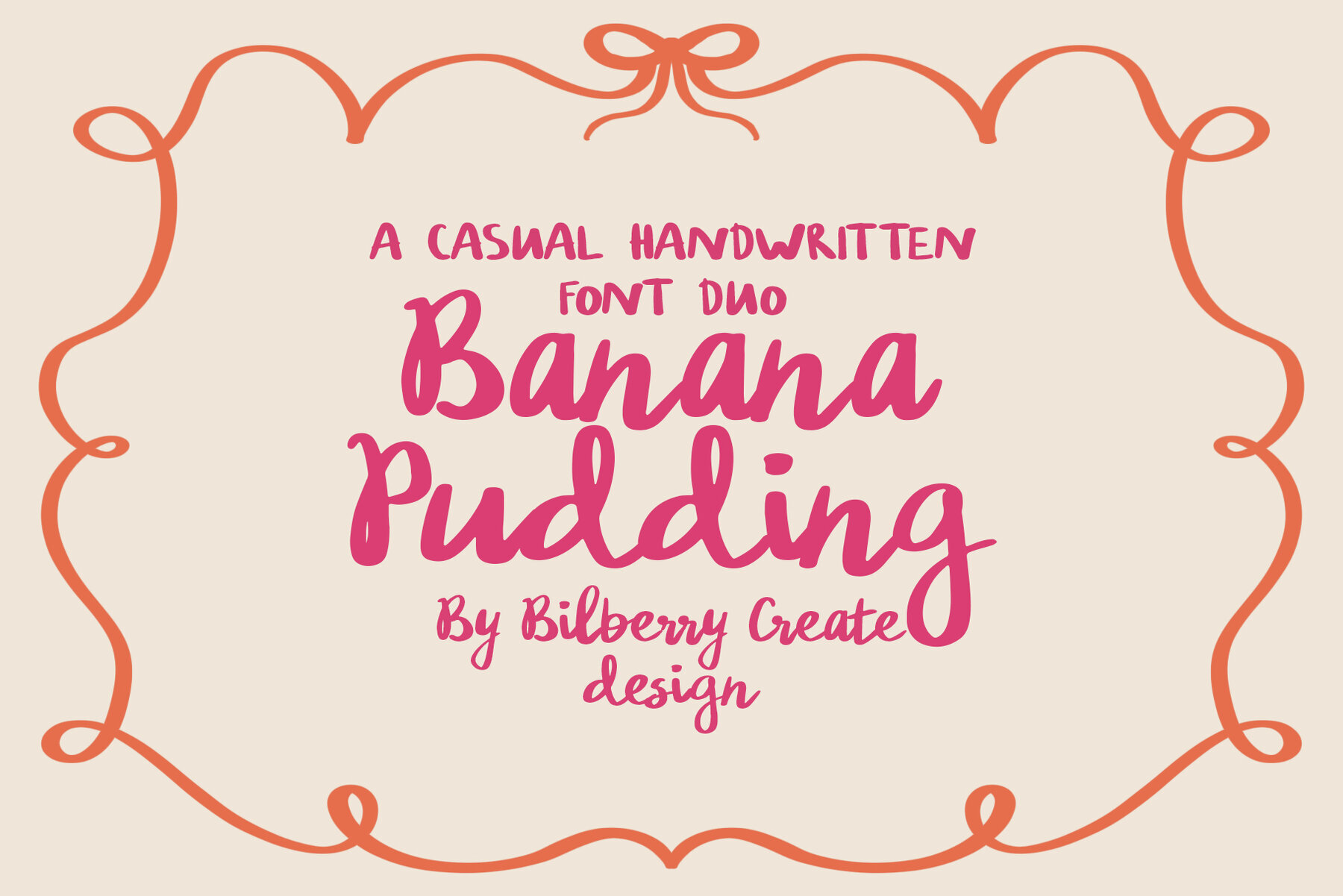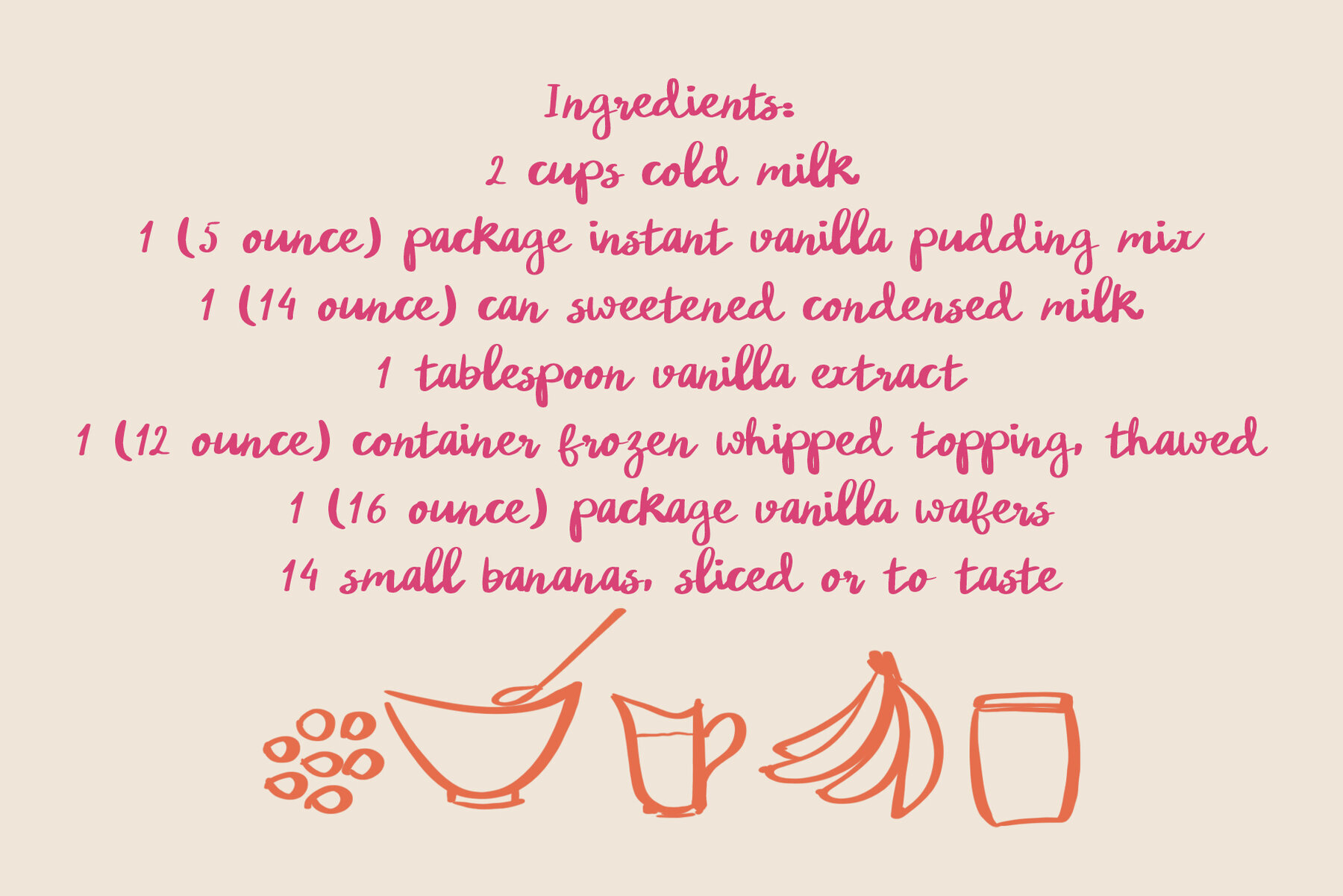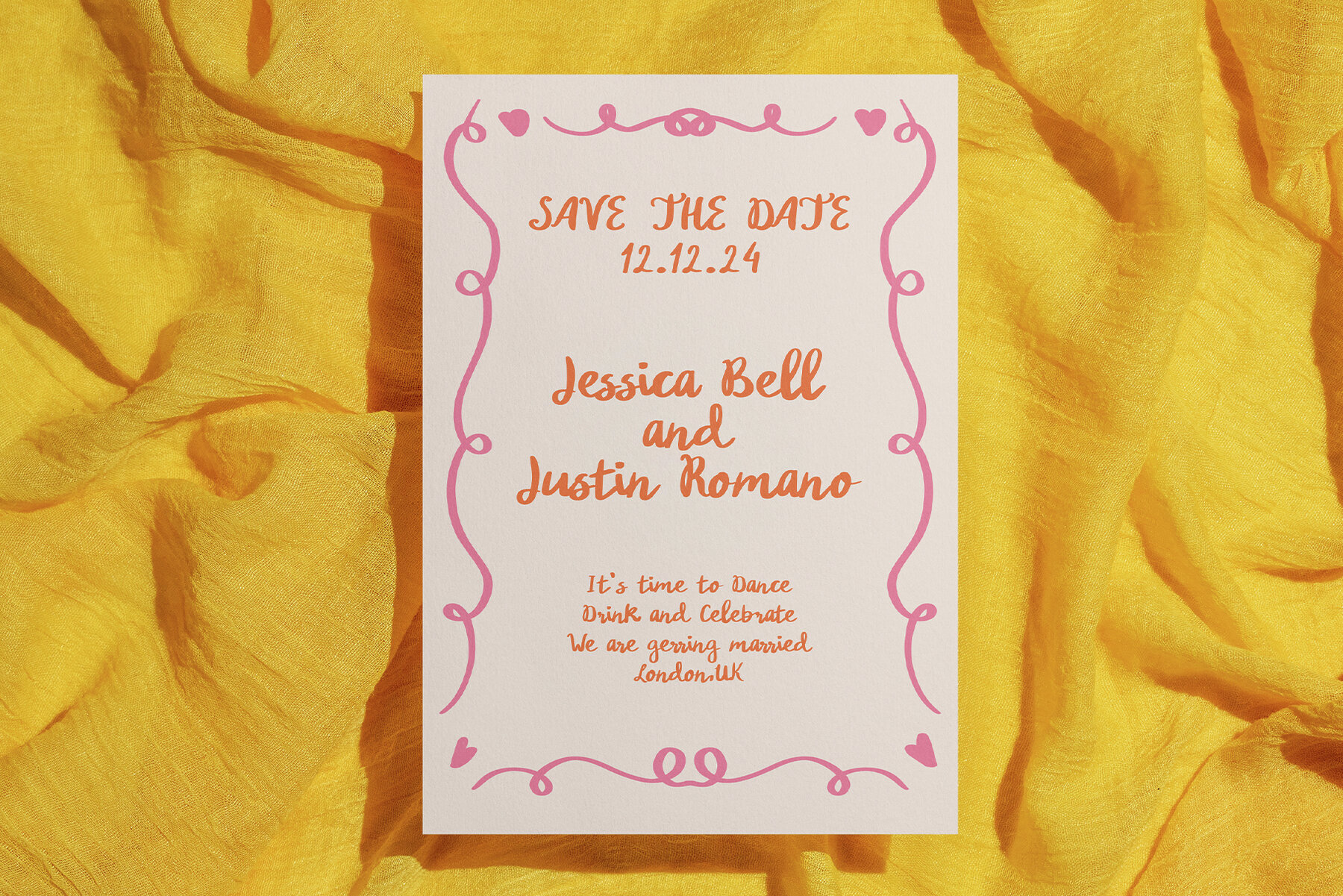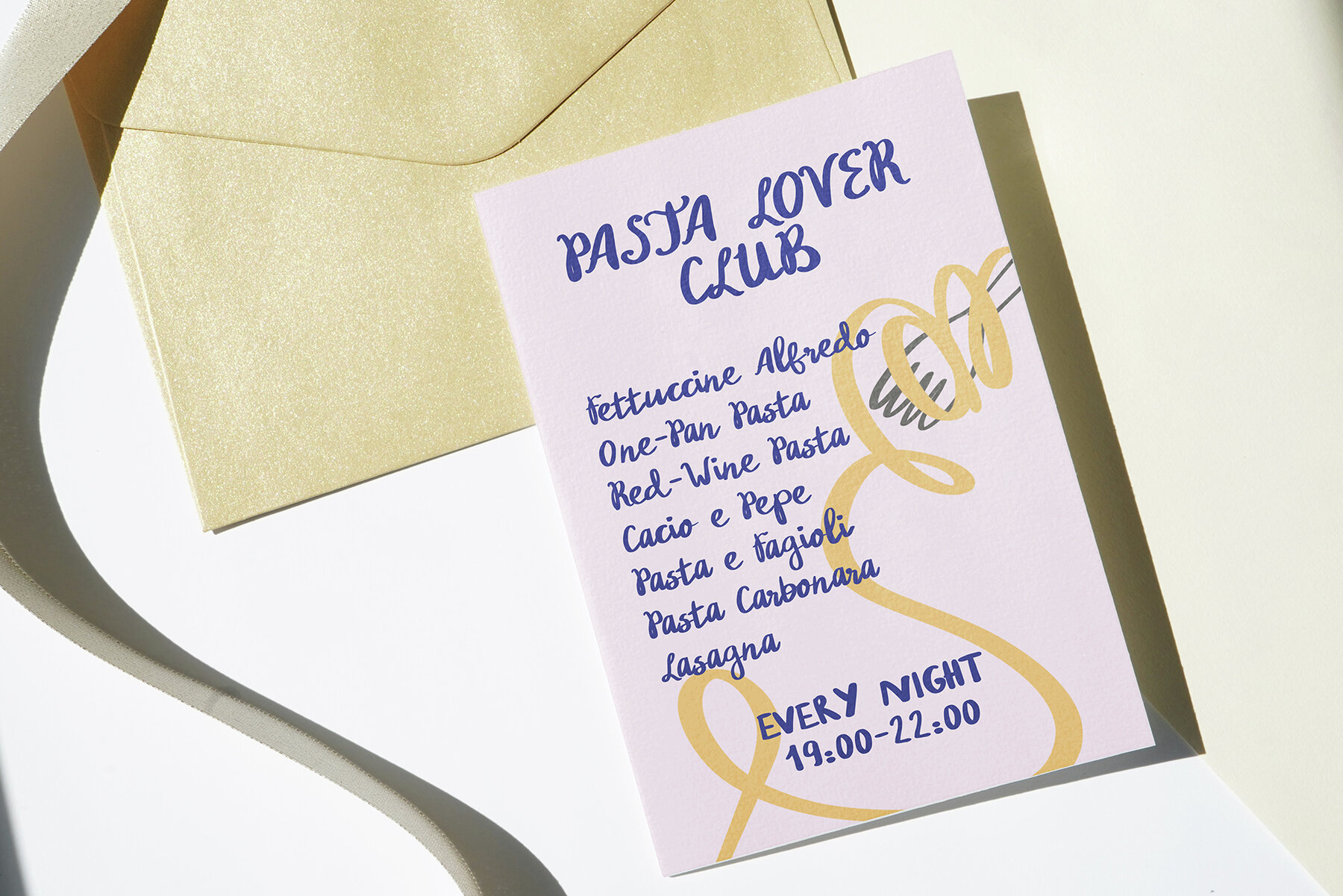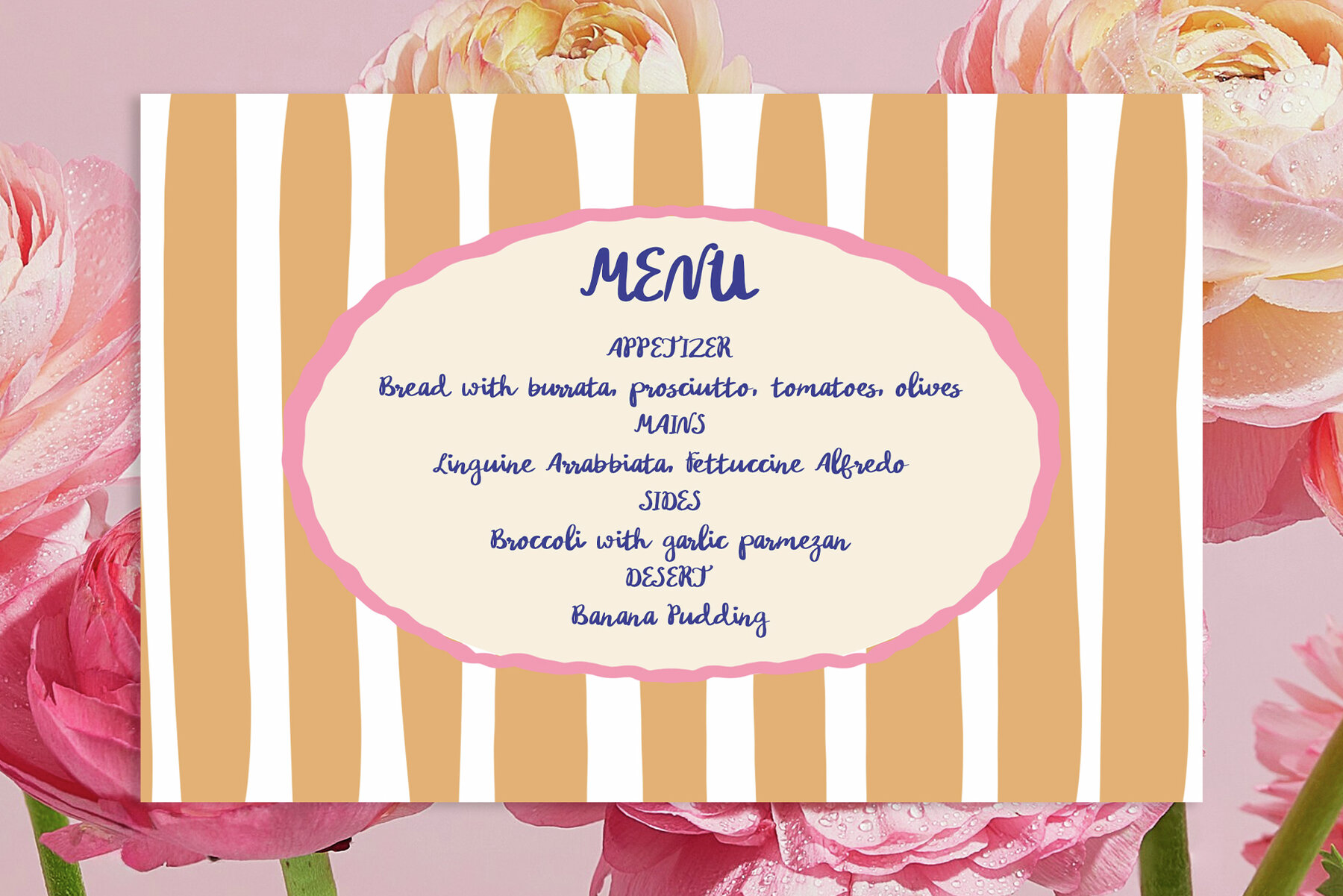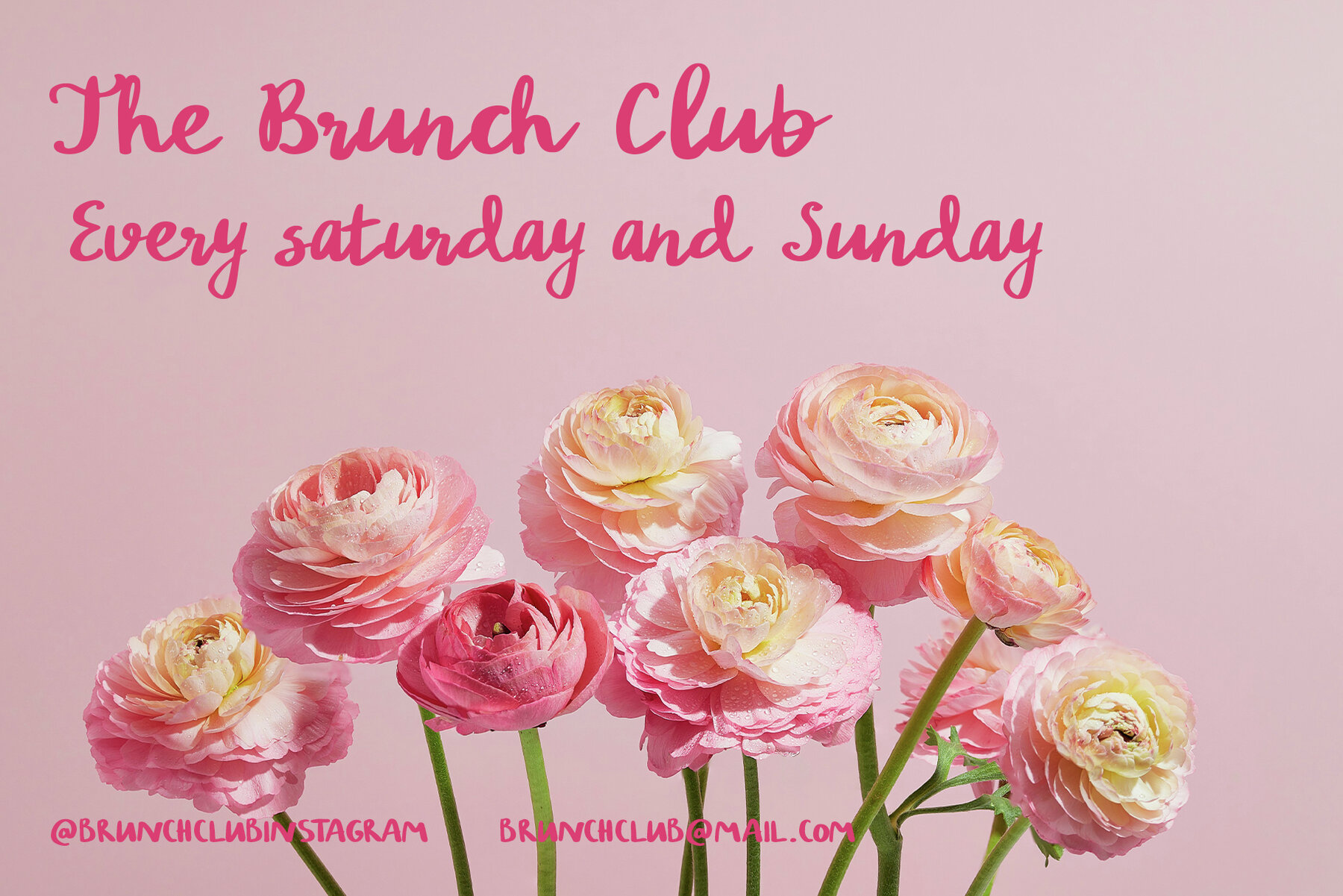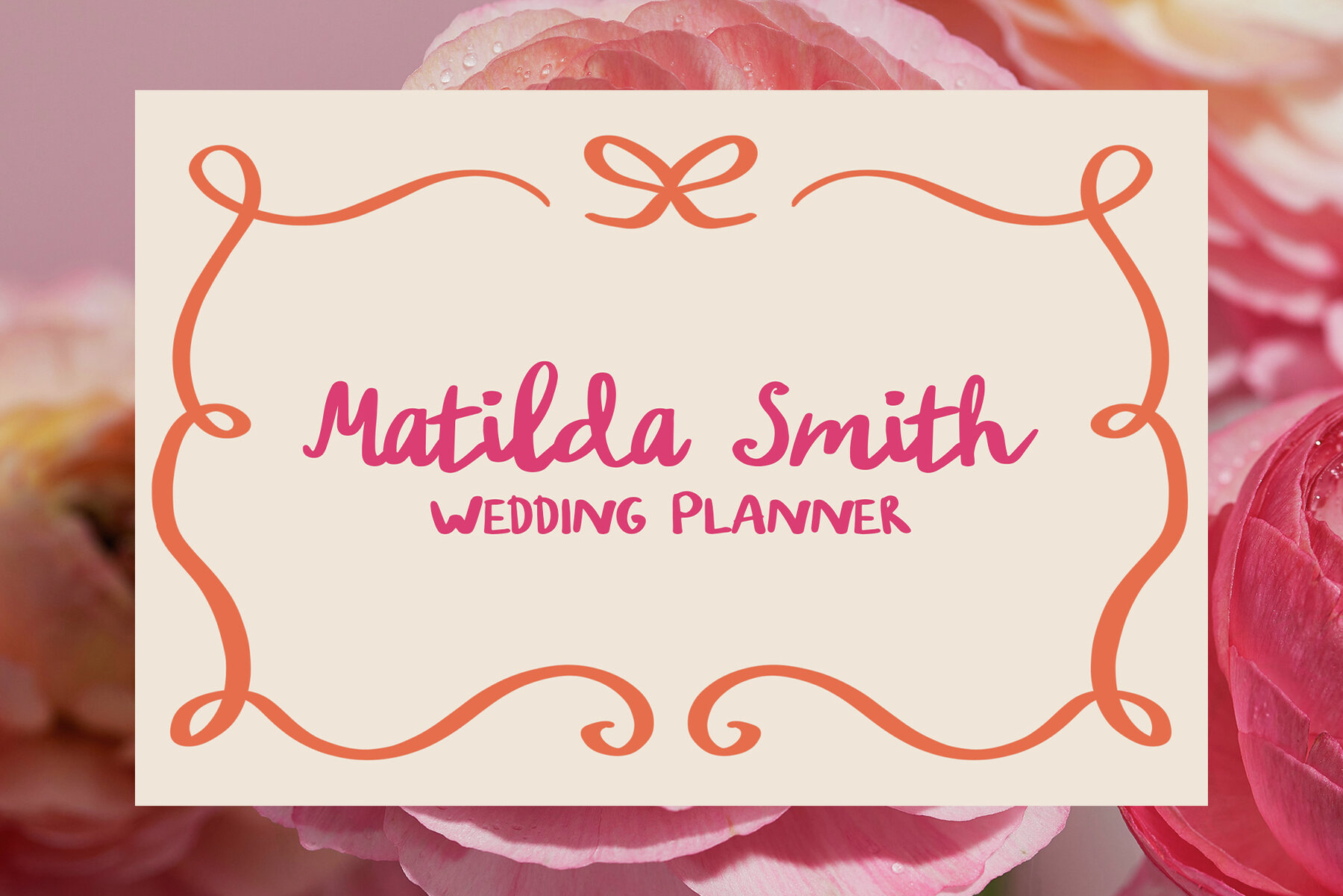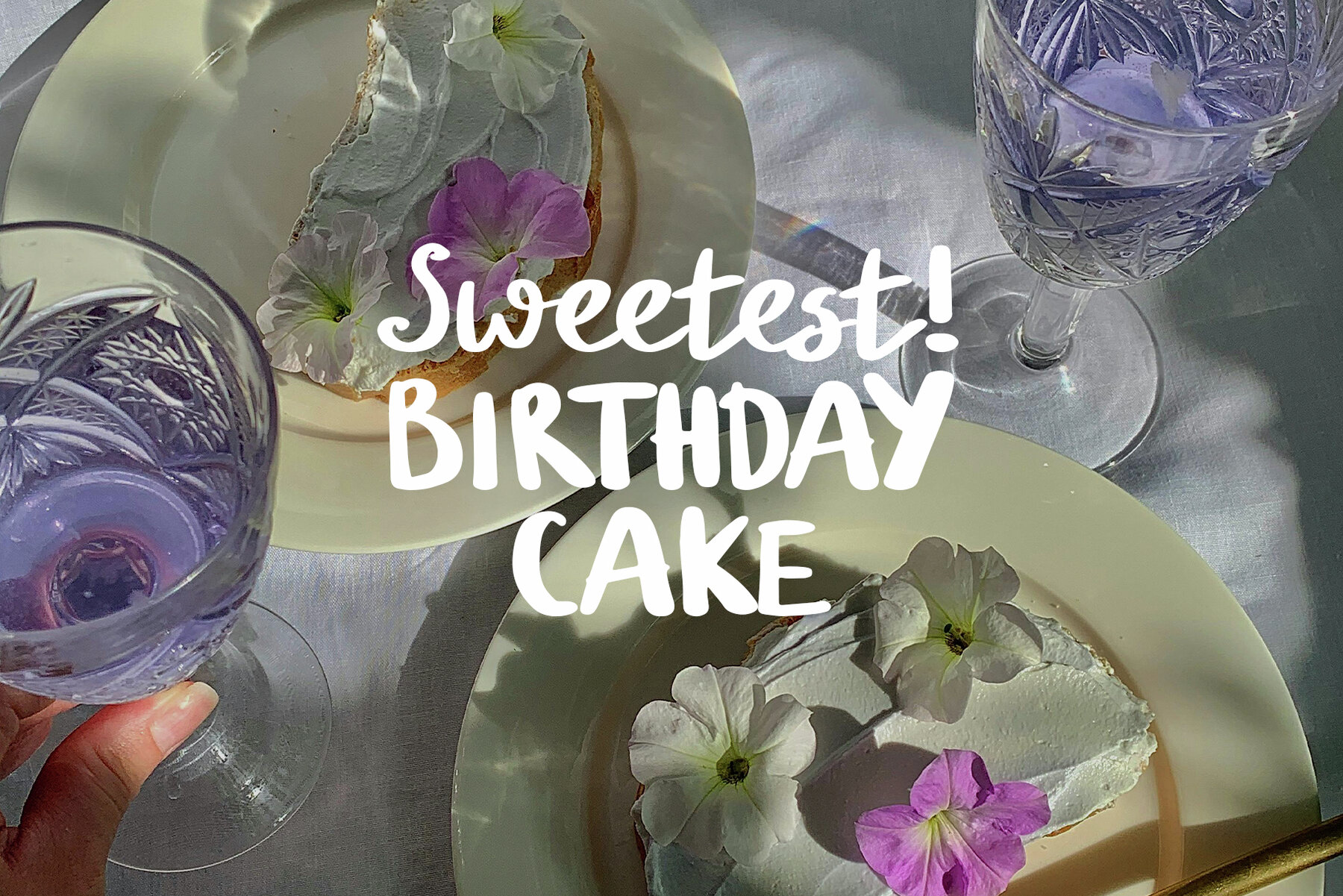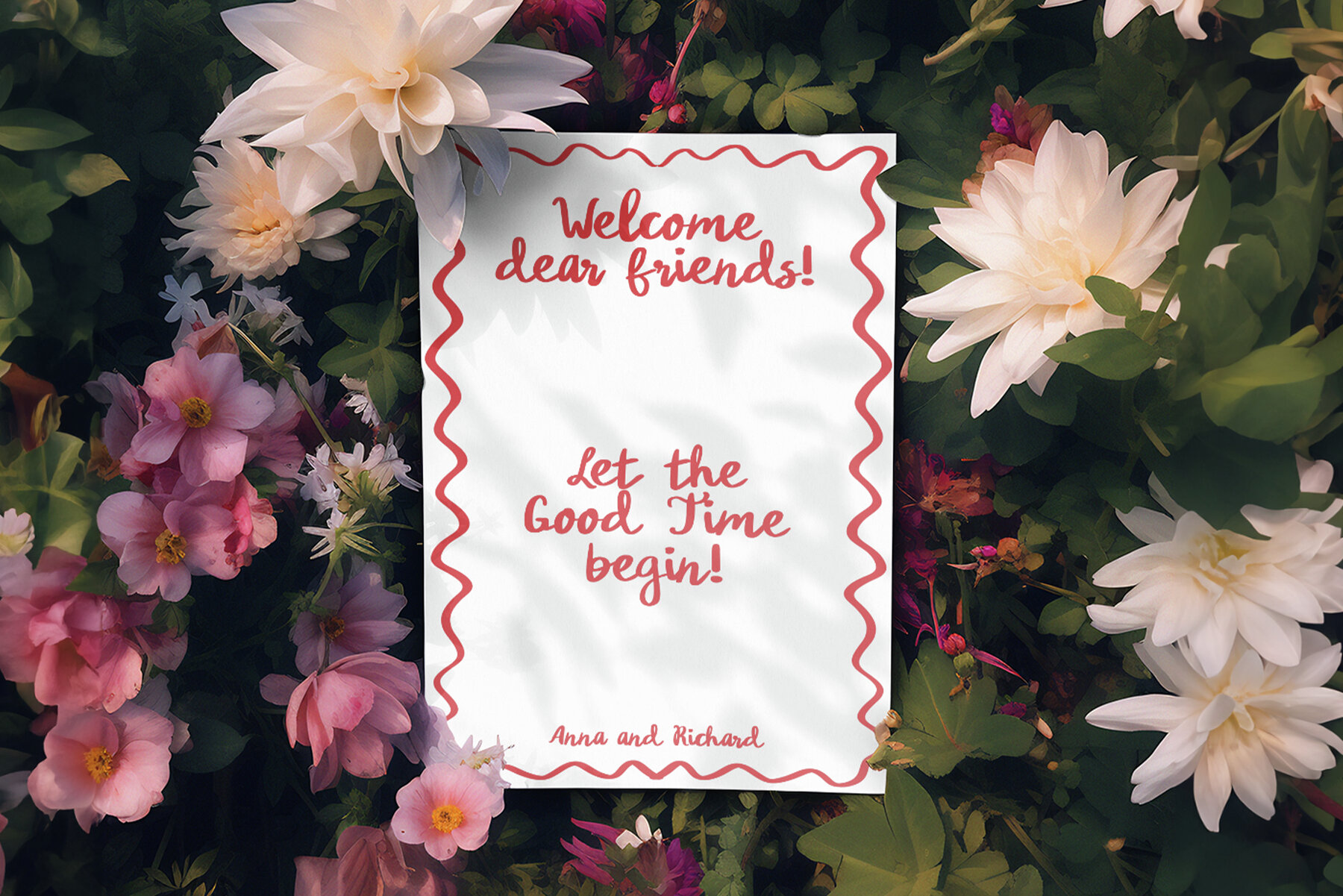
Banana Pudding Font
Banana Pudding is a casual handwritten font duo, perfect for a wide range of projects. This versatile typeface can be used to create logos, invitation cards, wedding cards, birthday cards, home décor items, packaging for holiday gifts, party decorations, and fabric prints.
- Banana Pudding Script
- Banana Pudding Sans